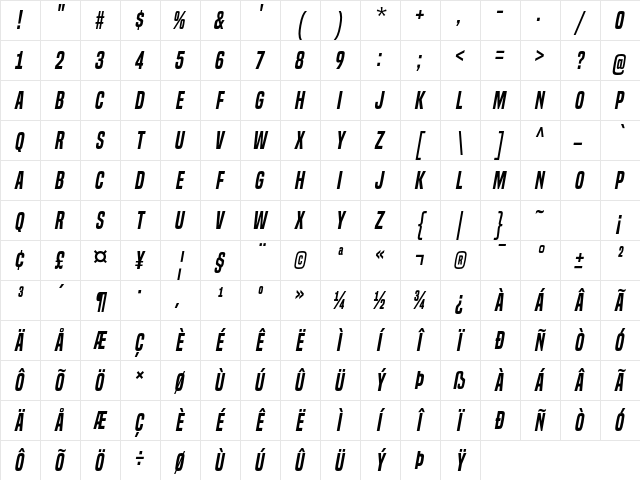
Built Titling SemiBold Italic
Style: SemiBold Italic
Built Titling Family
Design Context for Built Titling
Built Titling is a composed and adaptable typeface that performs quietly and consistently across a wide range of design contexts. The slanted form adds forward momentum and visual energy. Its bold stroke weight gives it real presence on the page.
Pro Tip: Use Built Titling for emphasis, pull quotes, and subheadings where its slanted energy can add rhythm to the layout.